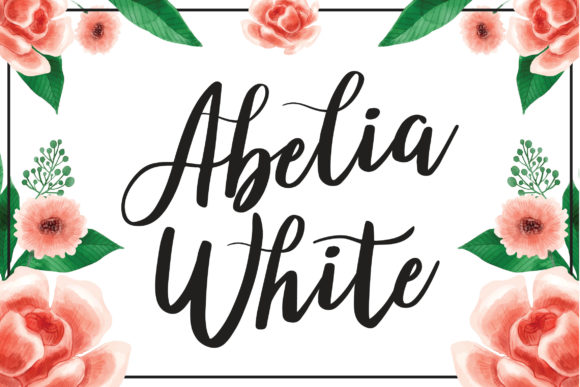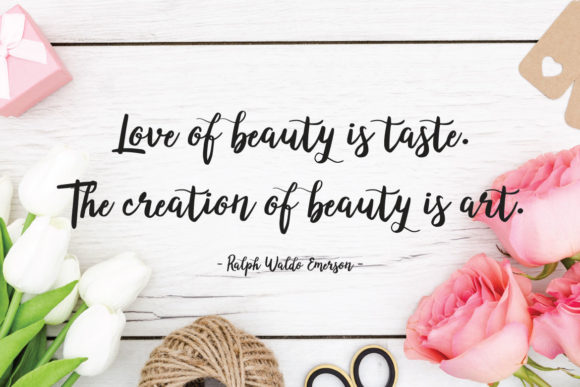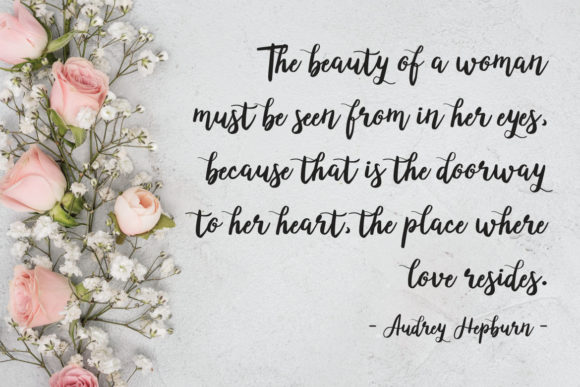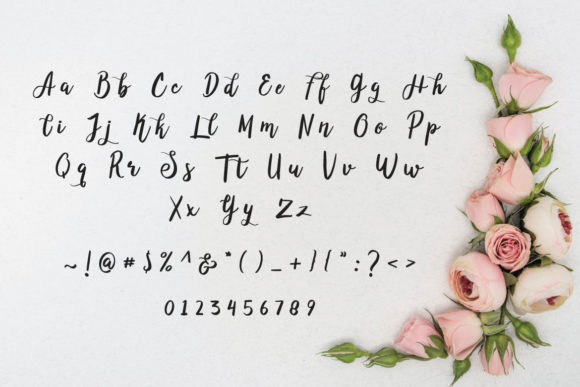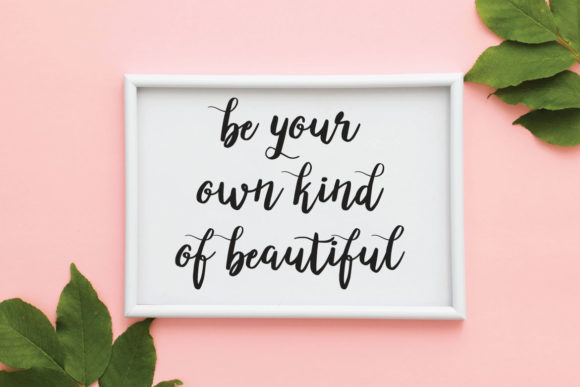
Abelia White Font
About Abelia White Font
Abelia White is an elegant and modern handwritten font with an incredibly luxurious feel. Its casual charm makes it appear wonderfully down-to-earth, readable and, ultimately, incredibly versatile. This versatility will appeal to a wide range of crafty ideas, from letterheads and titles, to stationery.